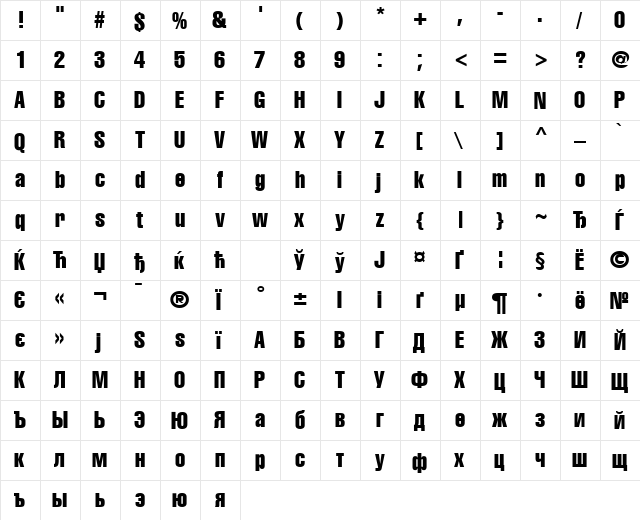
AGLettericaCompressed Roman Font Preview
AGLettericaCompressed Roman
Design Context for AGLettericaCompressed Typeface
AGLettericaCompressed offers clean, dependable letterforms without strong stylistic allegiance, making it a practical choice for designers who need flexibility.